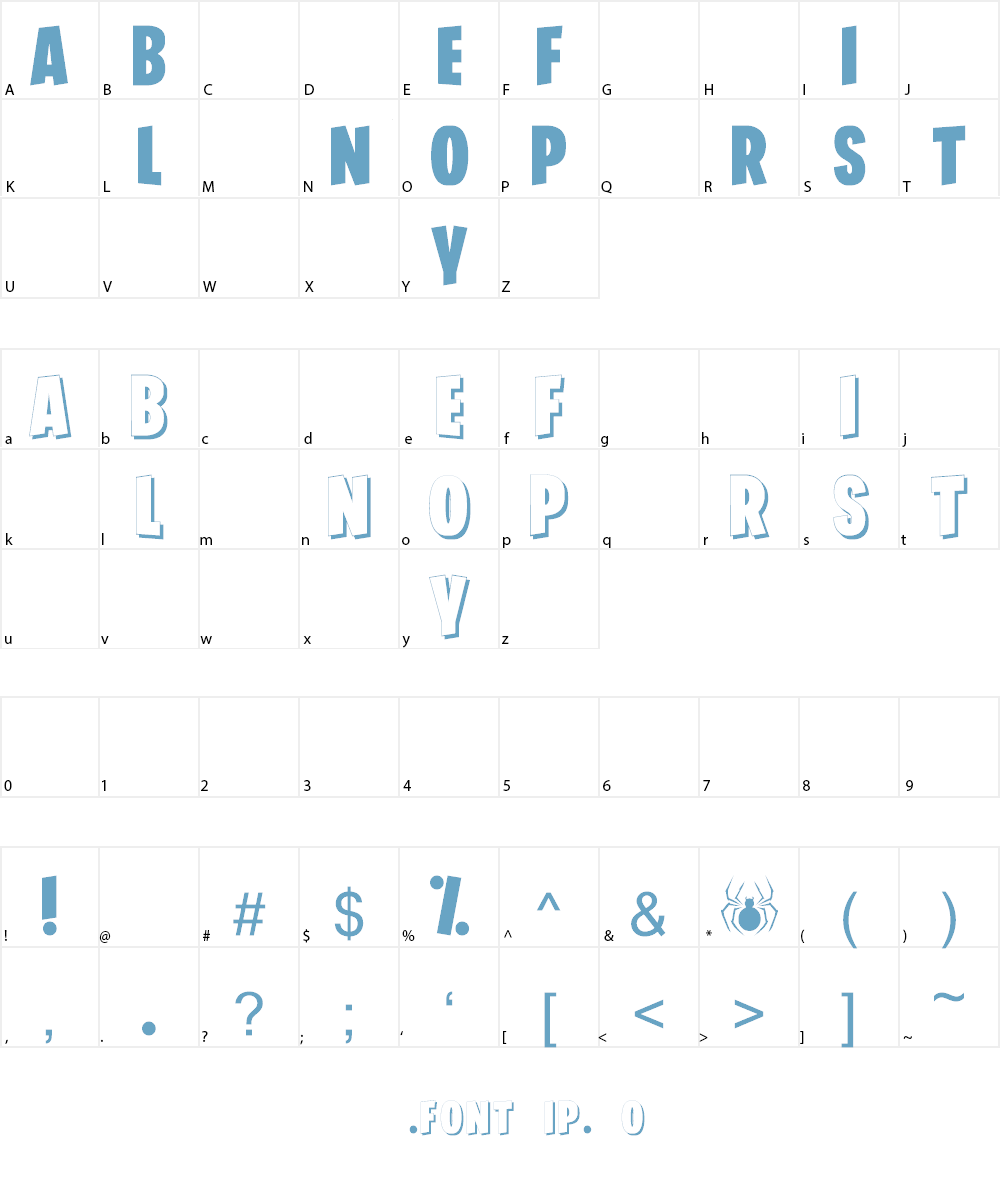
I created this typeface based on the FPS shooter game of a similar name that my son is totally addicted to, I guess he's a true Battle Fan, find weapons do battle, build and destroy just about anything you want before the storm hits the Island. This typeface It has similar wide arms with angled stems, crossbars and collars.